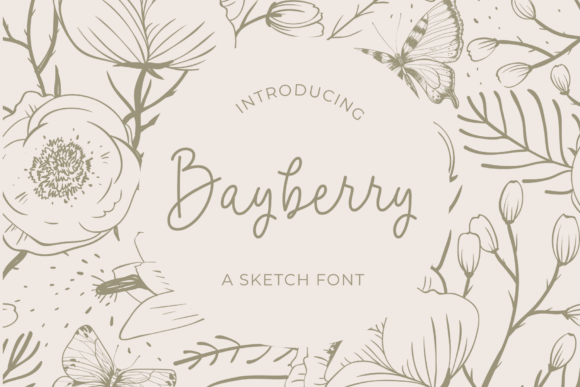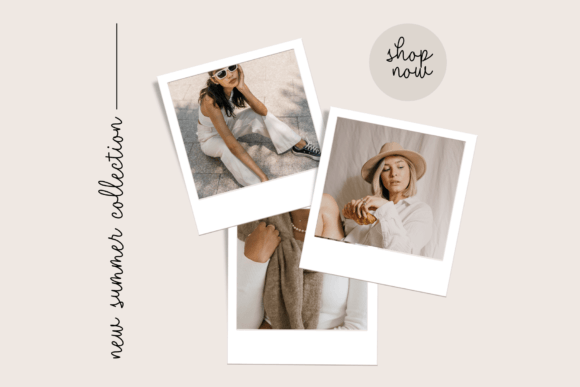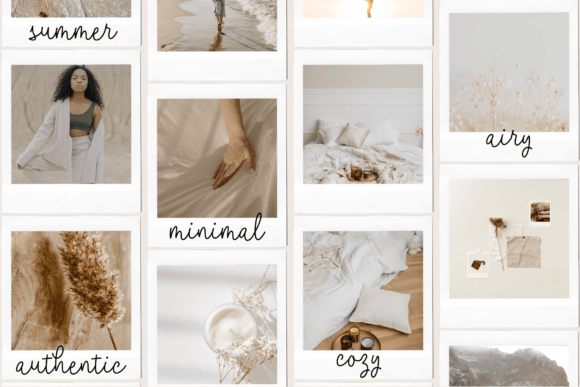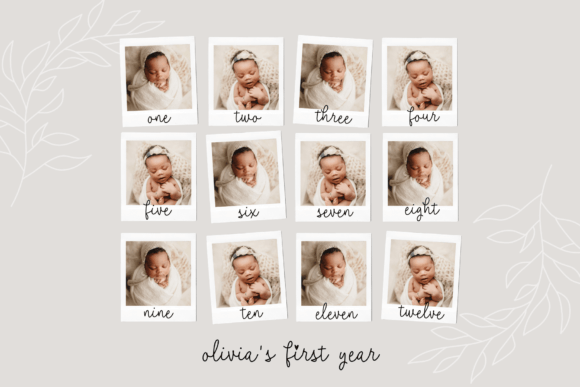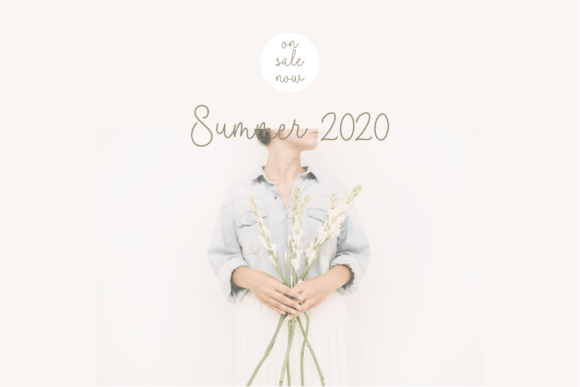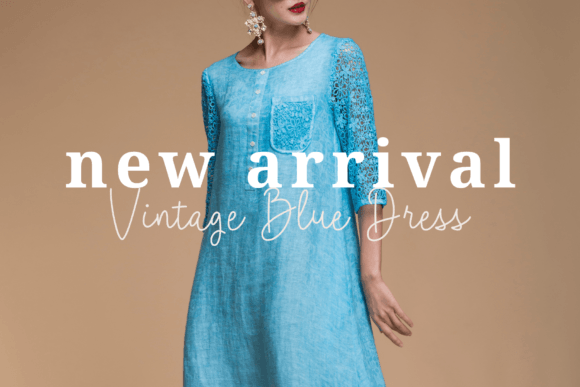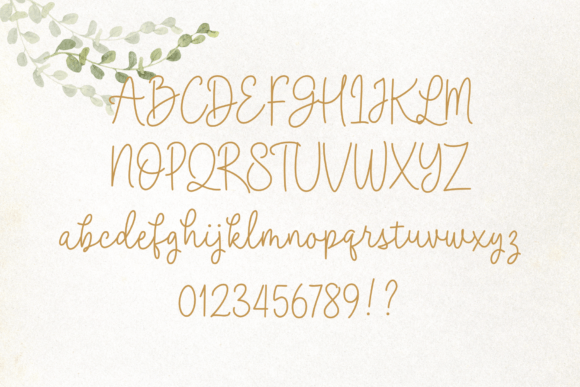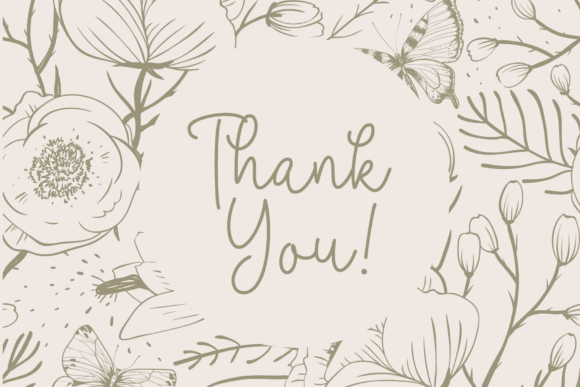
Bayberry Font
About Bayberry Font
“Bayberry: Simple and Easy-to-Read Handwritten Font for Elegant Designs
Presenting ‘Bayberry,’ a simple and easy-to-read handwritten font designed to enhance the elegance of your creative projects. Whether you’re working on greeting cards, magazines, headers, wedding invitations, beautiful stationary art, eye-catching social media posts, or more, Bayberry is the perfect choice. This font is not just a typeface; it’s a design asset that brings simplicity and readability to your work, creating a visual impact that resonates with sophistication.
The simplicity and easy-to-read nature of Bayberry make it an excellent choice for a variety of elegant designs. The handwritten style adds a personal touch, enhancing the overall aesthetics and creating a visually pleasing and memorable experience.
For greeting cards, magazines, headers, and wedding invitations, Bayberry becomes a standout choice, infusing a sense of simplicity and elegance into your text. The font’s easy-to-read design contributes to a visually appealing and sophisticated look.
In various creative projects, Bayberry serves as a delightful element, creating a visual impact with its simple and elegant design. Its versatility adds a touch of sophistication to your endeavors, making it suitable for a wide range of contexts.
Bayberry’s ability to convey simplicity and elegance makes it a valuable addition to your font library. Whether you’re working on stationary art or social media posts, Bayberry brings a simple and easy-to-read character to your designs.
In conclusion, Bayberry is more than just a typeface; it’s a design companion that enhances the elegance of your creative toolkit. Let Bayberry be the artistic element that elevates your greeting cards, magazines, headers, and various other projects. Embrace the simple and easy-to-read charm of Bayberry, and watch as it transforms your ideas into visually enchanting and memorable experiences.”